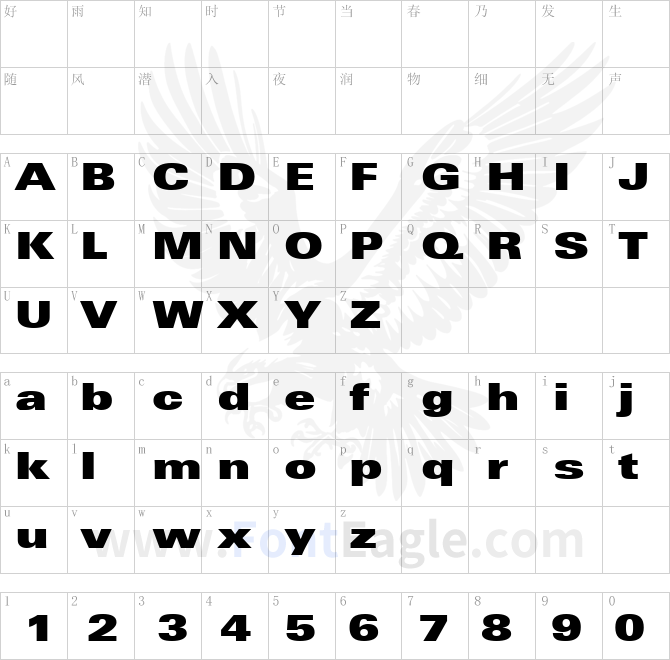
- Font name:Univers LT 93 ExtraBlackEx
- Font Subfamily ID:Linotype Library GmbH: Univers LT 93 Extra Black Extended: 2002
- Font Full Name:Univers LT 93 Extra Black Extended